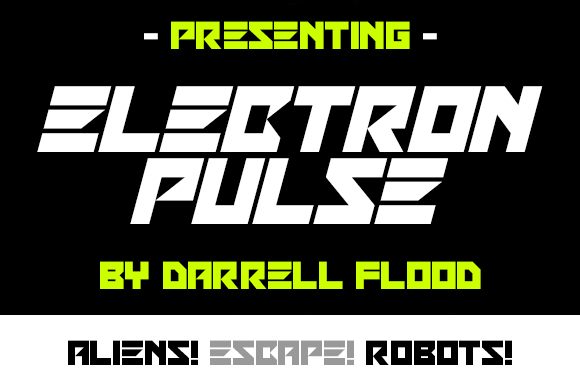
Unlocking the Power of the Electron Pulse Font
Have you ever stared at a blank canvas, waiting for that elusive spark of creativity to strike? It’s a moment we’ve all been in – the blank page, the blinking cursor, the pressure to create something amazing. But what if that spark was just a font away?
Enter the Electron Pulse Font, a futuristic and edgy typography that’s perfect for space adventures, science themes, and modern designs. This angular, high-tech font is designed to capture the essence of innovation and cutting-edge technology, making it a valuable addition to any designer’s toolkit. Whether you’re working on a sci-fi project or simply want to give your design a modern twist, the Electron Pulse Font is sure to deliver.
Electron Pulse Font Key Features
- Size: The font size is designed to be highly legible, with a clear and crisp appearance at sizes ranging from 10pt to 48pt.
- Resolution: Electron Pulse Font is optimized for high-resolution displays, ensuring it looks great at resolutions of 72 dpi, 96 dpi, and 144 dpi.
- Unique Characteristics: The font features a futuristic and energetic design, with a unique blend of geometric and organic shapes that give it a distinctive look.
- Scalability: The font is designed to be highly scalable, maintaining its clarity and legibility even at very small sizes, making it ideal for digital applications where text is often displayed in compact form.
Electron Pulse Font Review
Overall, I’d say the Electron Pulse Font is an interesting choice for designers looking to add some futuristic flair to their projects. ✨ The font’s bold, neon-inspired aesthetic is sure to grab attention, and it’s particularly well-suited for titles, headings, and other display typography.
The font’s versatility is another strong point. It comes in a range of weights, from thin to bold, making it easy to customize to suit your design needs. ✨ Additionally, the font’s high contrast between light and dark areas makes it highly legible, even at small sizes.
- Neon-inspired aesthetic that’s perfect for futuristic designs
- Range of weights for customizable typography
- High contrast between light and dark areas for legibility
- ⚠️ May not be suitable for text-heavy designs due to its bold, attention-grabbing nature
- ⚠️ Some users may find the font’s aesthetic too flashy or over-the-top
- ⚠️ Limited support for non-English languages due to its unique character set
Overall, the Electron Pulse Font is a great choice for designers looking to add some excitement to their projects. While it may not be suitable for every design scenario, its unique aesthetic and versatility make it a valuable addition to any designer’s toolkit.
Tips for Getting the Most Out of Electron Pulse Font
Use Electron Pulse Font sparingly to create emphasis and draw attention to important information. Pair the font with other fonts to create a visually appealing contrast. Experiment with different font sizes, colors, and styles to create a unique look.
Electron Pulse Font is ideal for creating futuristic, high-tech, and sci-fi designs. Use it to create headings and titles for technology-related projects, such as video games, sci-fi movies, or tech company logos.